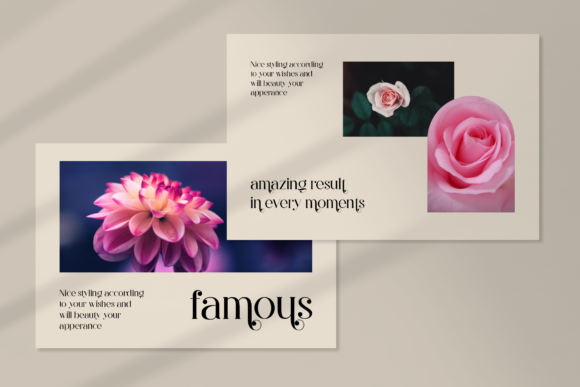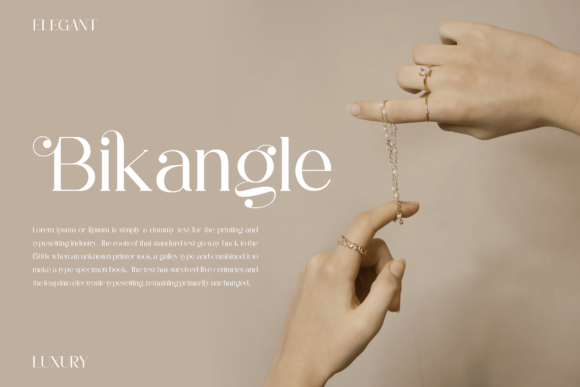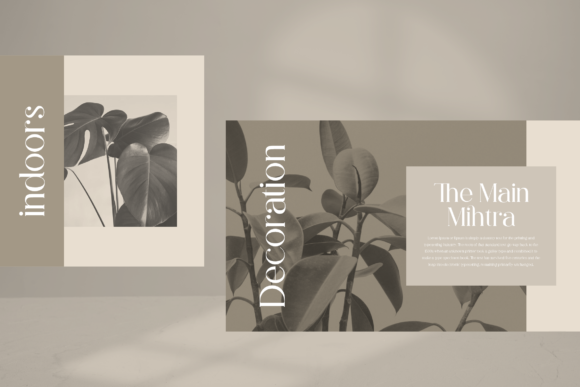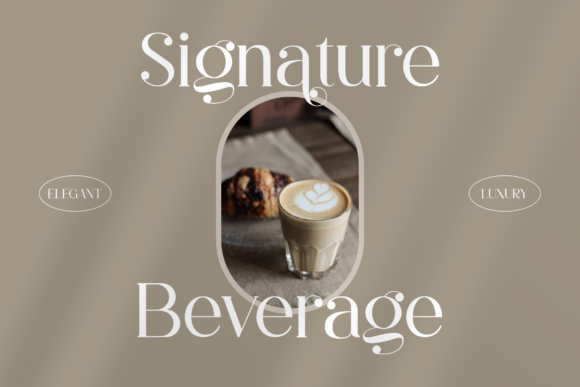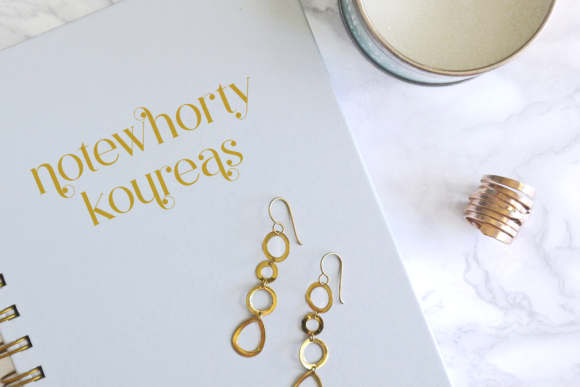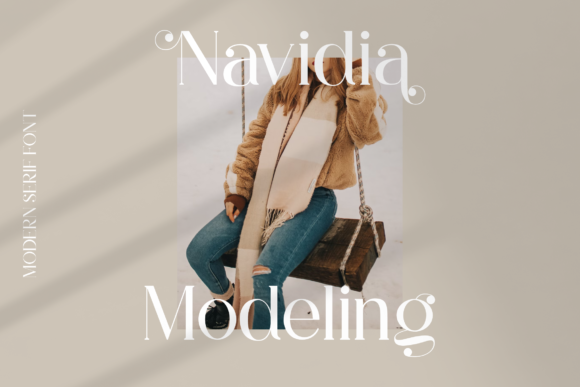
Introduction to Rihena Font
Proudly present Rihena – modern and classic serif font featuring its own unique style and modern look.
This typeface is perfect for an elegant & luxury logo, book or movie title, fashion brand, magazine, clothes, lettering, quotes, etc This font is PUA encoded, which means you can access all of the glyphs and swashes with ease.
Key Features of Rihena Font